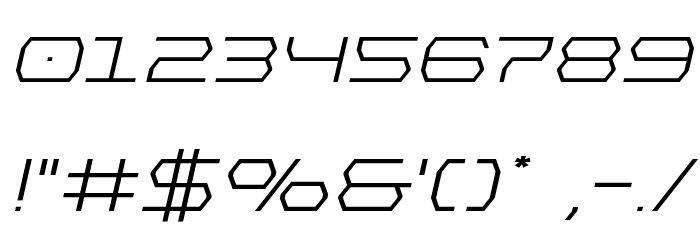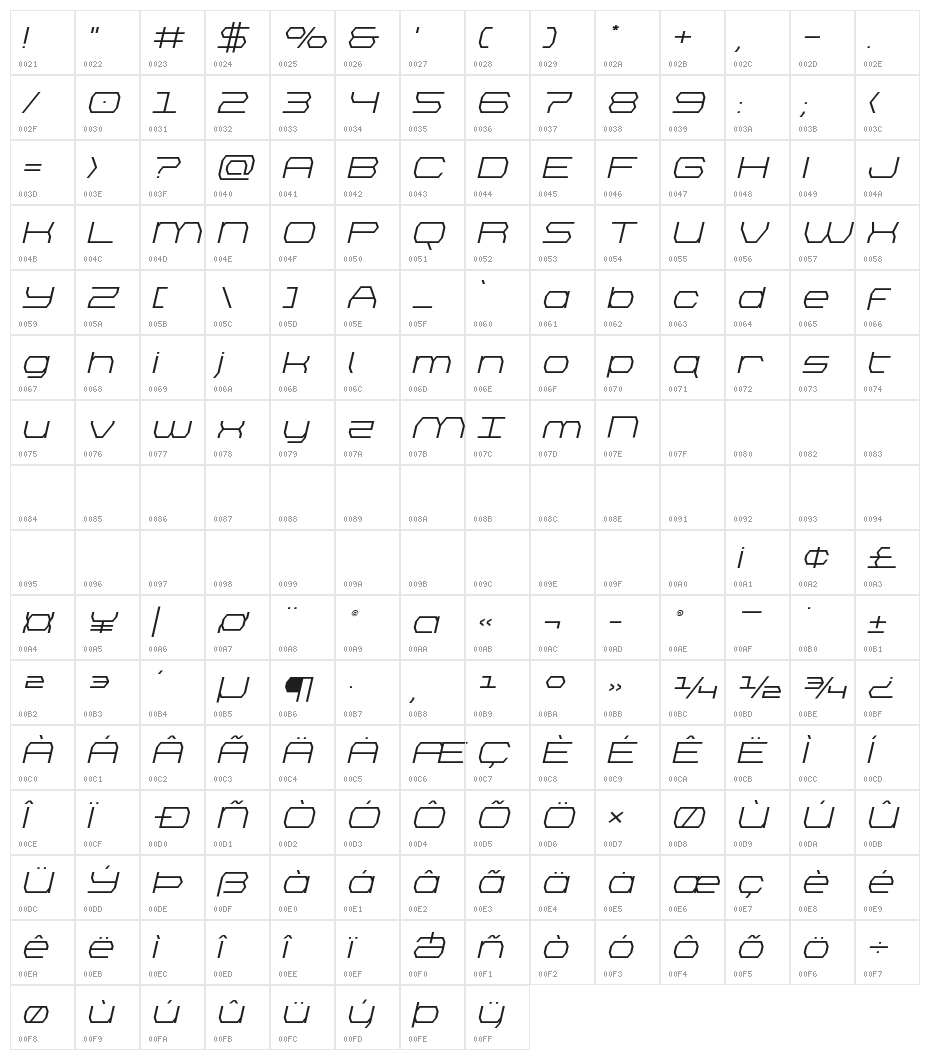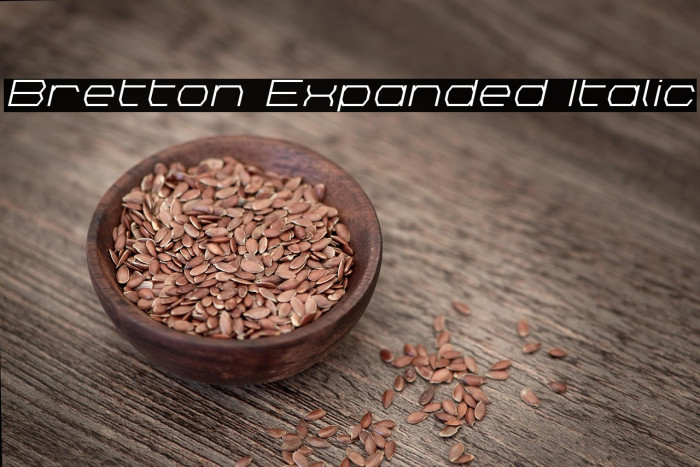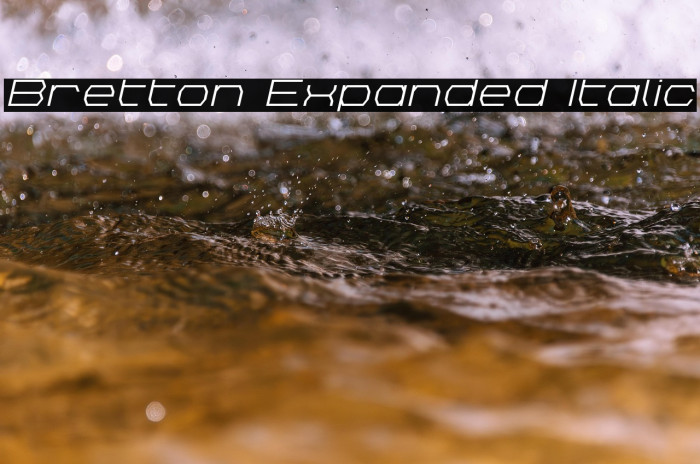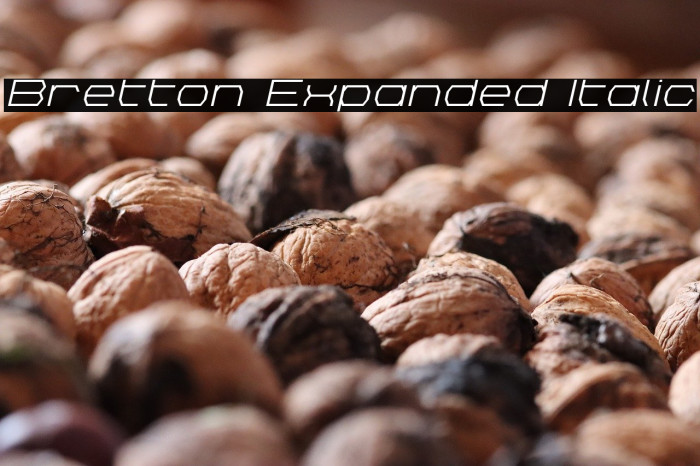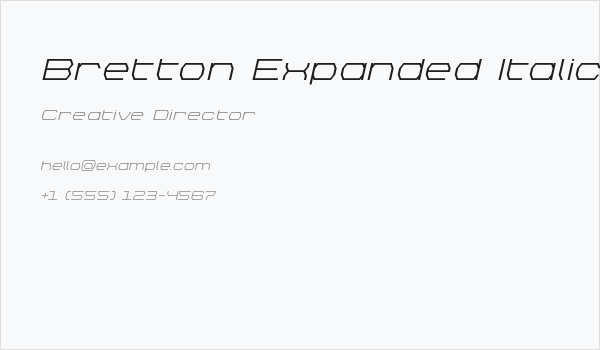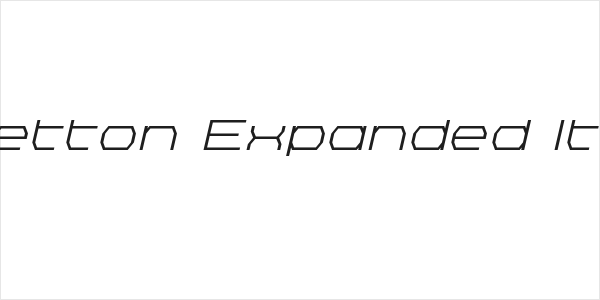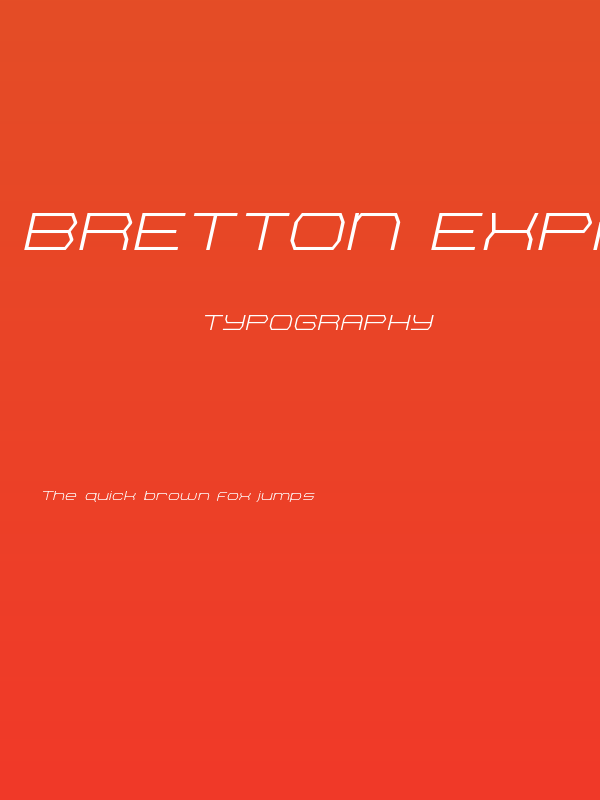
Bretton Expanded Italic Font
Bretton Expanded Italic Description
This font features a modern and sleek design with an expanded and italicized style. The characters are geometric with sharp angles and clean lines, giving it a futuristic and technical appearance. The uppercase and lowercase letters maintain a consistent structure, while the numerals and special characters complement the overall aesthetic. The font's expanded width enhances readability, making it suitable for various design applications.
| Proposed Projects | Ideal for technology branding, futuristic posters, and innovative product packaging. |